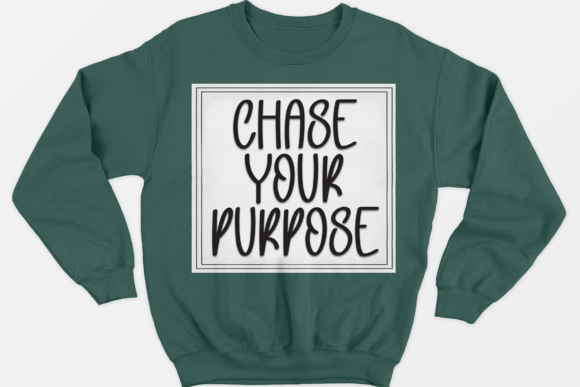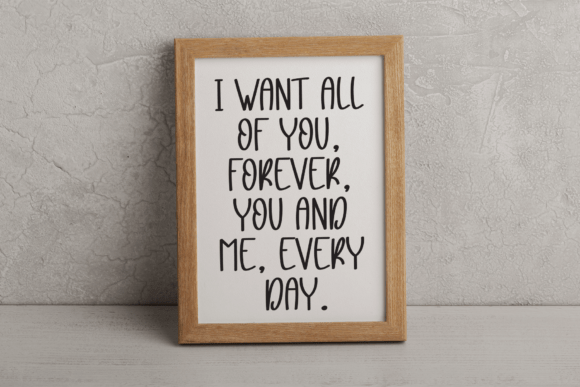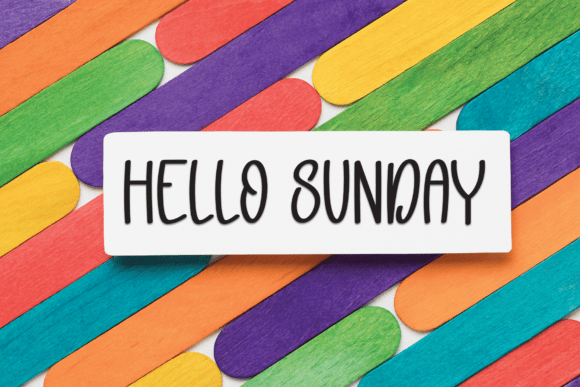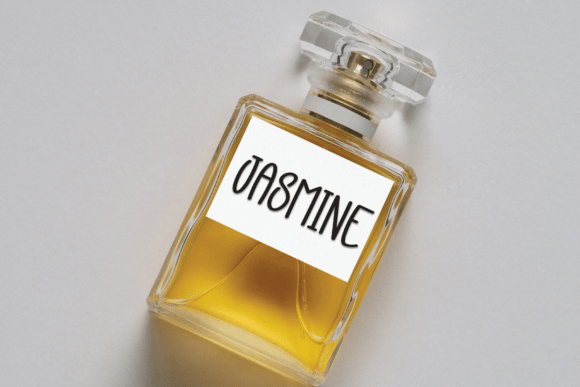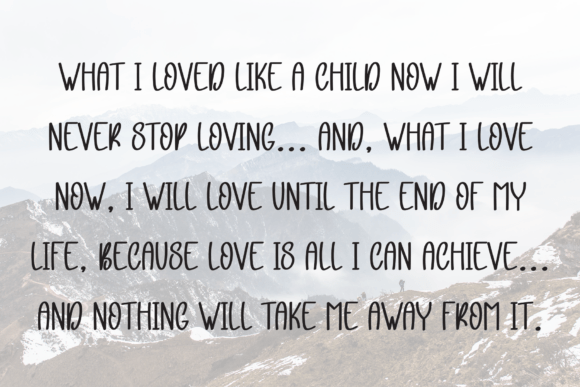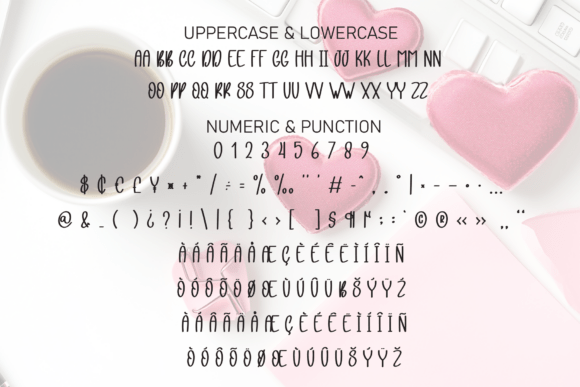
Introduction to Love Daily Font
Have you ever been working on a creative project, pouring your heart and soul into every detail, only to feel like something is missing? That’s where the perfect design resource comes in – a font that speaks directly to your vision and brings it to life. For designers and creatives, finding the right font can be the difference between a good project and a great one.
That’s why we’re excited to introduce the Love Daily Font, a special collection of creative products designed to give you an extraordinary experience. This stylish font is perfect for any project that requires a touch of handwritten elegance, from wedding invitations to social media post logos.
With its long-term support, free features, and bug fixes, the Love Daily Font is a valuable resource for designers who want to take their projects to the next level. Whether you’re working on a high-quality design or just need a little inspiration, this font is sure to deliver.
Key Features of Love Daily Font
- Cute and playful design ideal for creative projects and personal use
- Transparent background for easy customization and versatility
- High-quality design suitable for a variety of design resources such as social media graphics, logos, and more
- Available in multiple sizes and resolutions to accommodate different design needs
- Unique characteristics include swash and ligature styles for added creativity and flair
- Perfect for designers looking for a free design resource to elevate their creative project
Honest Review: Love Daily Font
As a designer, I’m always on the lookout for high-quality design resources to enhance my creative projects. Recently, I stumbled upon the Love Daily Font, and I’m excited to share my honest review with you.
- ✨ The font’s elegant and modern design makes it perfect for romantic-themed projects, such as Valentine’s Day cards or wedding invitations.
- ✨ The font comes with a transparent background, allowing for easy customization and seamless integration with other design elements.
- ⚠️ The font’s character set is limited, which may not be ideal for projects that require a wide range of characters.
- ⚠️ The font’s design may not be suitable for bold or headline text, as it’s more suited for body text.
Overall, I’m impressed with the Love Daily Font’s high-quality design and versatility. While it may have some limitations, it’s an excellent resource for designers looking for a elegant and modern font for their creative projects.
Use the Love Daily Font as a design resource to add a touch of elegance to your projects. Experiment with different text sizes and colors to get the most out of it.
The Love Daily Font is perfect for a variety of creative projects, including wedding invitations, greeting cards, and social media graphics. Its high-quality design and transparent background make it a great choice for any design need.